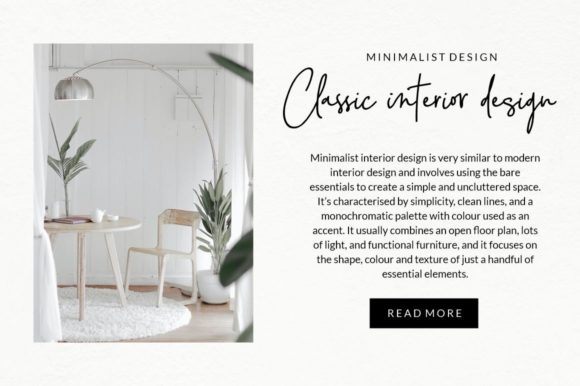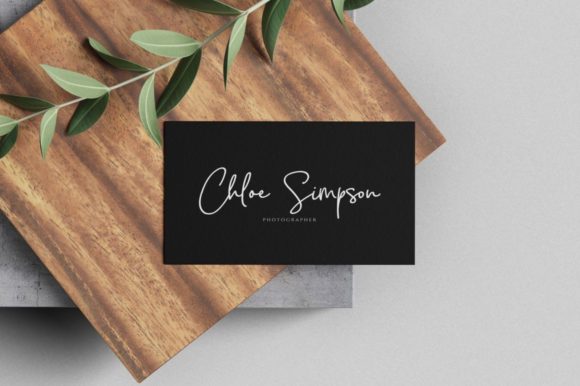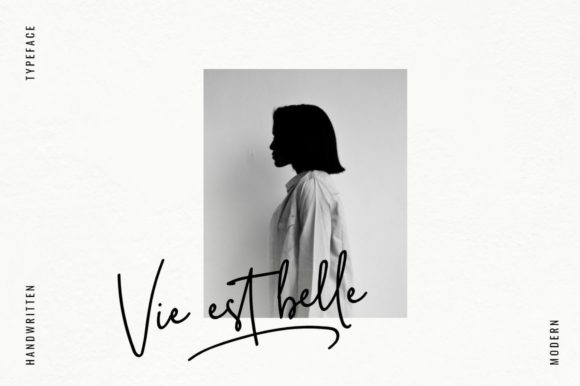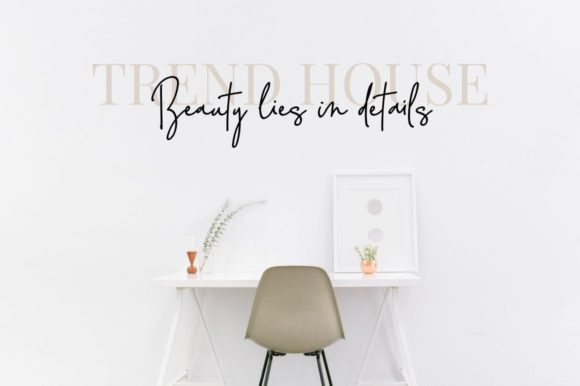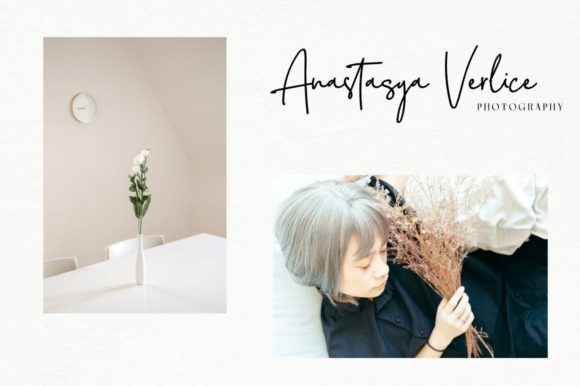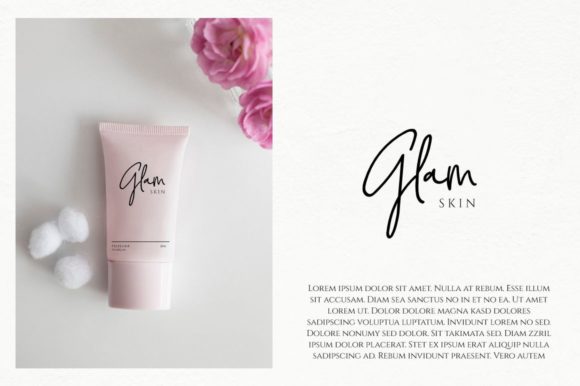
Introduction to Blink High Signature Font
Remember that moment when you stumbled upon the perfect font for your design project? The one that makes your creative vision come alive and leaves a lasting impression on your audience? For designers, that ‘aha’ moment is priceless. It’s the difference between a good design and a great one. And, if you’re looking for a font that will elevate your branding, wedding designs, or social media posts to the next level, you’re in luck.
We’re excited to introduce you to the Blink High Signature Font, a beautiful handwriting font that’s perfect for adding a customized touch to your projects. With its authentic and natural style, this font is a game-changer for designers who want to create high-quality designs that stand out from the crowd.
Key Features of Blink High Signature Font
- Unique, high-quality design suitable for various creative projects, including logos, branding materials, and digital art.
- Perfect for designers and artists seeking a distinctive and eye-catching font for their creative projects, including web design, print media, and more.
Honest Review: Blink High Signature Font
Here are some things that work well about the Blink High Signature Font:
- ✨ High-quality design: The font is incredibly detailed and looks amazing on both digital and print projects.
- ✨ Versatility: I’ve used it for everything from branding to social media graphics, and it always looks great.
However, I do have a few limitations to mention:
- ⚠️ Limited font styles: While the font is high-quality, it’s only available in a few different styles, which might limit its use in certain design projects.
- ⚠️ Not ideal for small text: The font is a bit too decorative for small text, so I have to use it sparingly in those situations.
Overall, I’m really impressed with the Blink High Signature Font. It’s a valuable design resource that I’ll definitely be using again in my creative projects.
Blink High Signature Font
The Blink High Signature Font is a high-quality design resource available for free download. It’s perfect for creative projects that require a unique and professional touch.
Using Blink High Signature Font in Design Tools
Tips for Getting the Most Out of Blink High Signature Font
Use the font with a transparent background to create a stunning visual effect. Experiment with different font sizes and colors to add depth and interest to your design.
The Blink High Signature Font is perfect for:
- Website headers and footers
- Social media graphics and ads